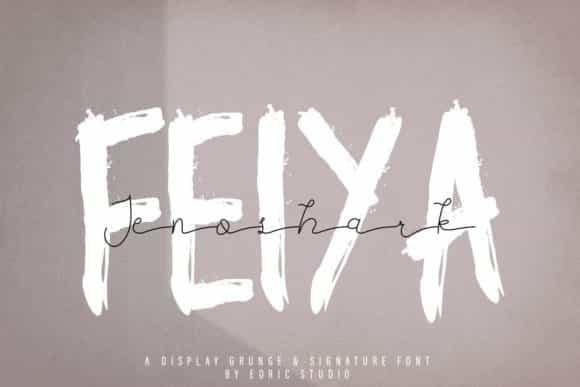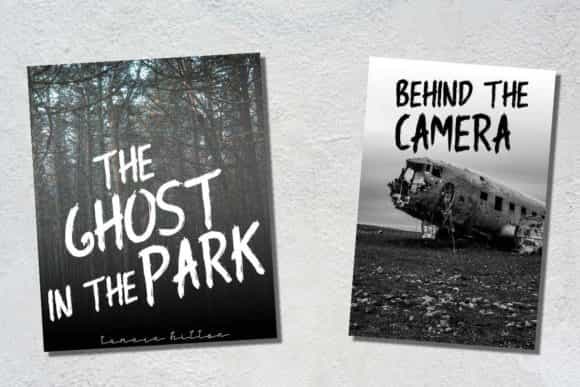
Discover Jenoshark Feiya Font Duo, part of the Brush Handwritten Display collection—a versatile and unique font perfect for adding a personal touch to your projects. Download it for free and enjoy crafting designs with style, from invitations to social media posts. This font is available exclusively for personal use, giving you the freedom to create without limits. Unlock your creativity with Jenoshark Feiya Font Duo today!
Introducing Jenoshark and Feiya, the best font duo ever! Jenoshark Feiya is a stylish hand-lettering script font with the cutest styles that are perfect for your next creative project like logos, printed quotes, invitations, cards, product packaging , headers and many other things.